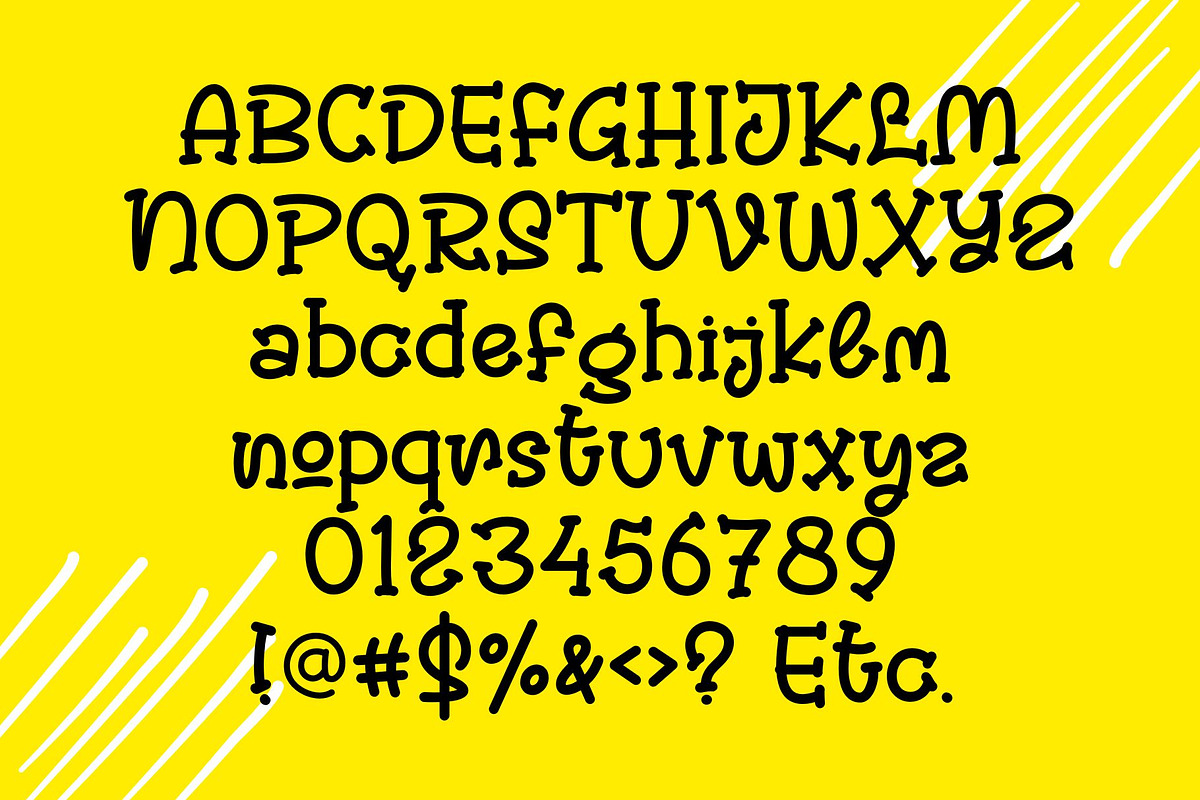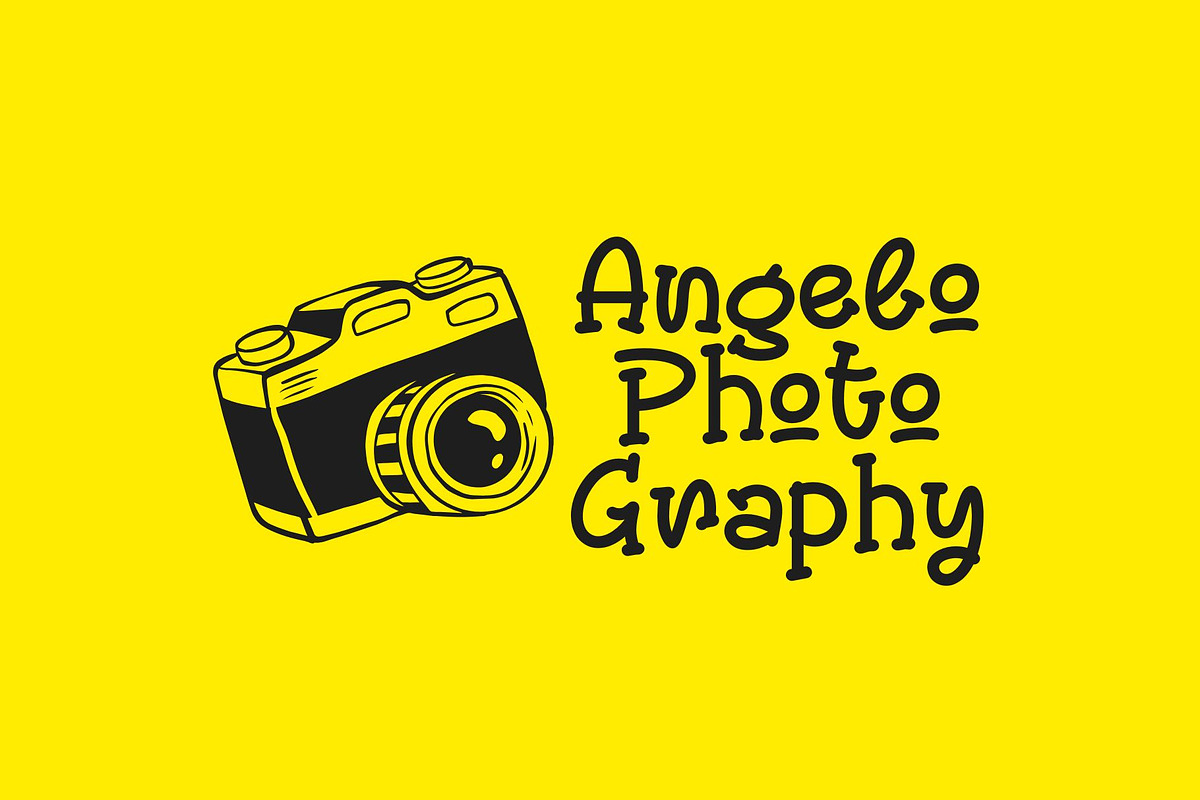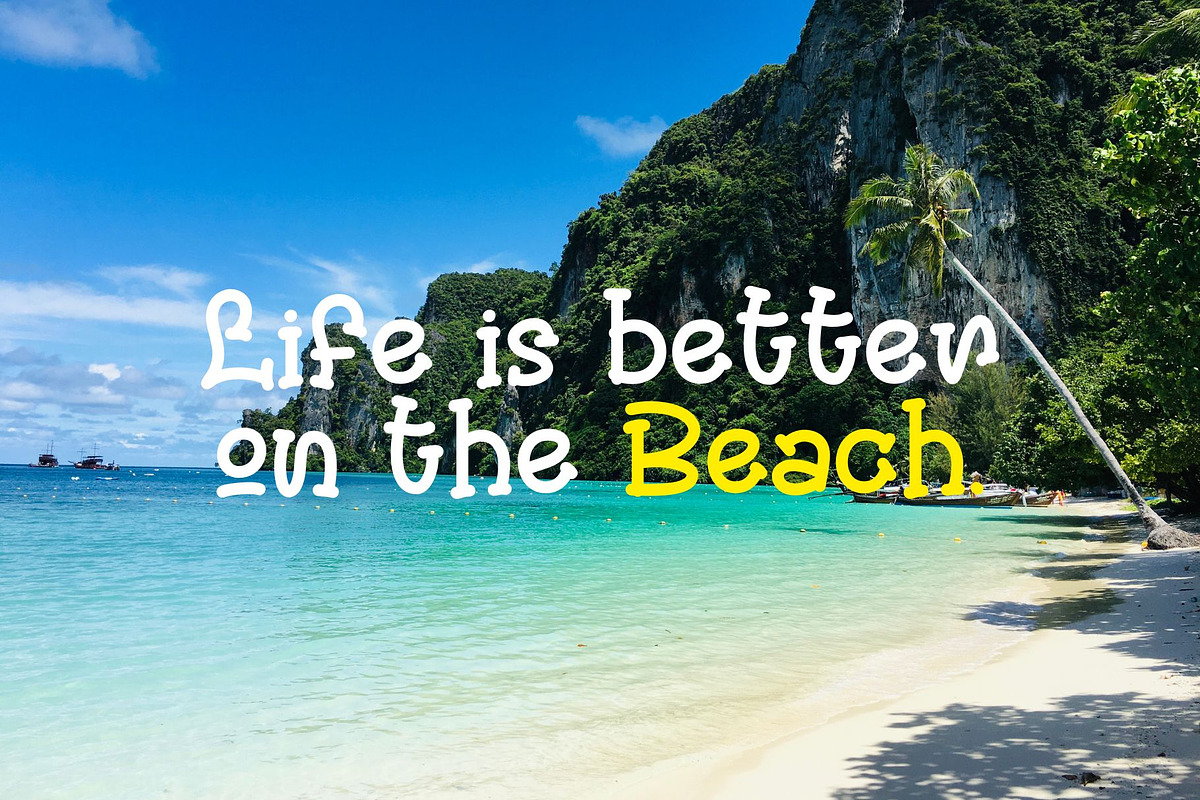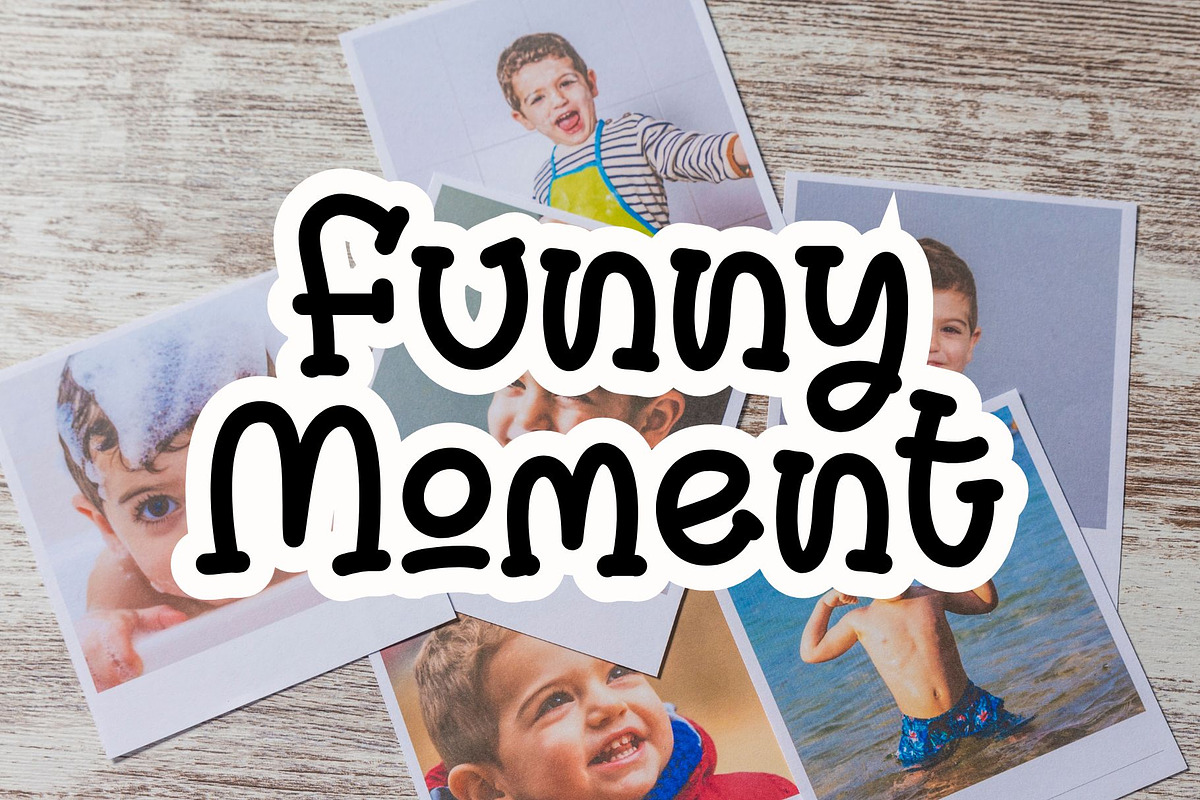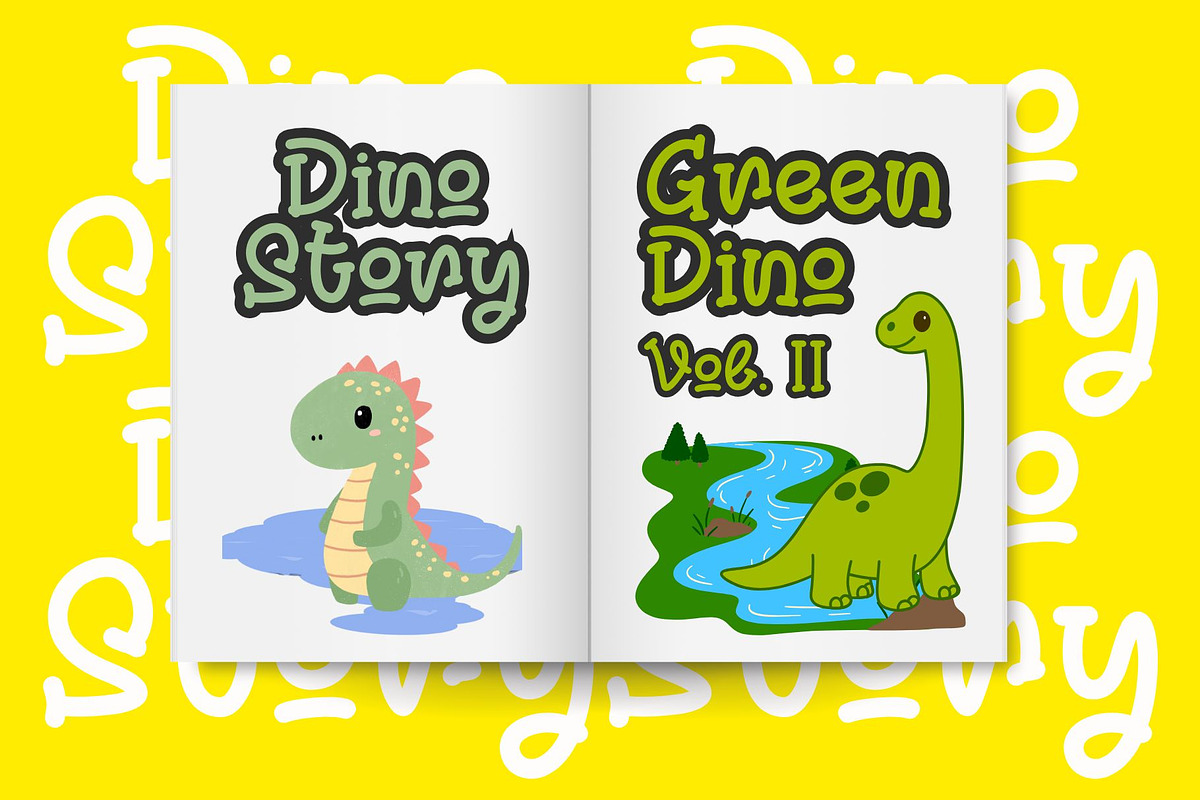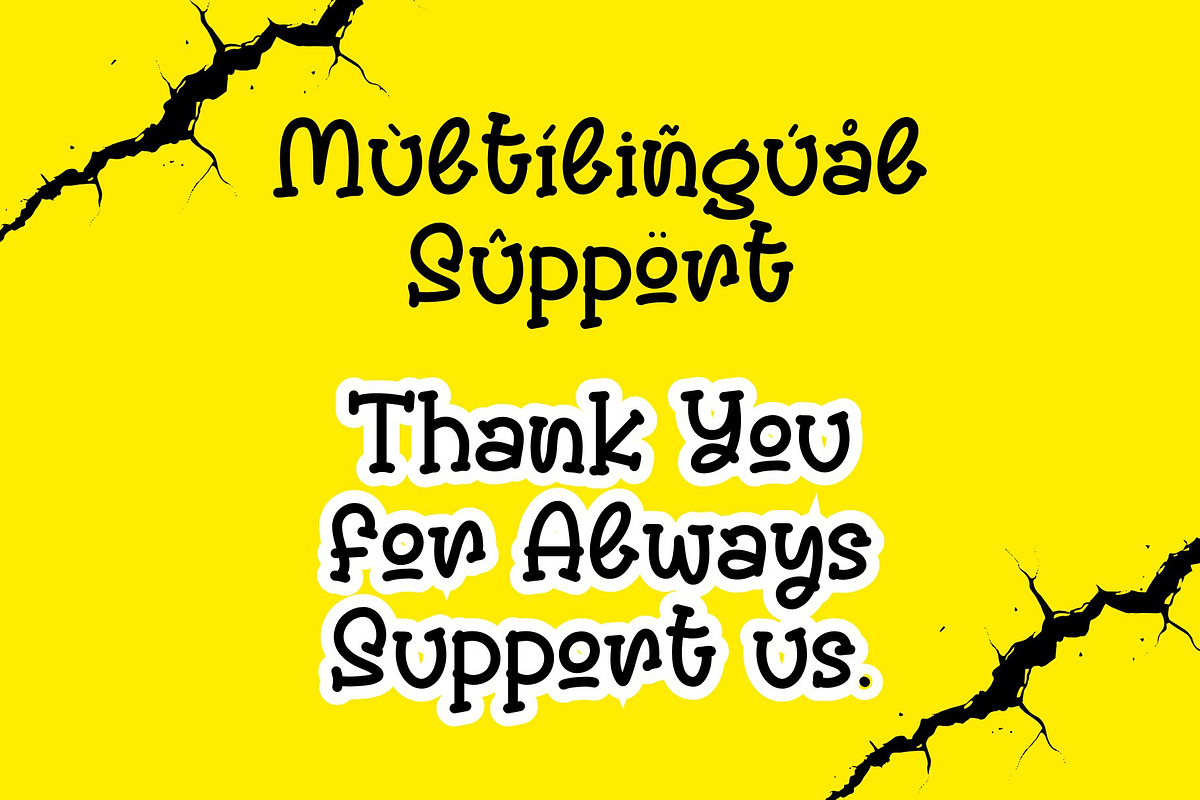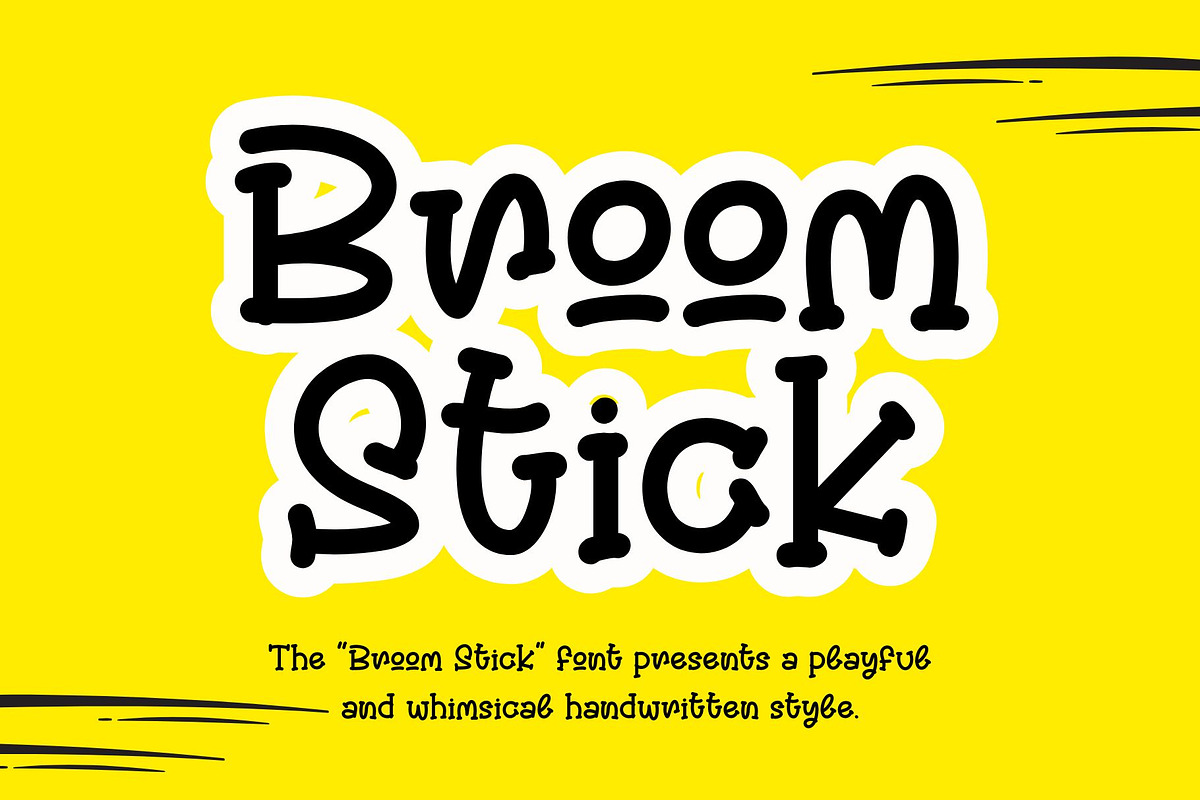
Broom Stick
The Broom Stick font presents a playful and whimsical handwritten style with tall, rounded characters and a slightly irregular baseline. Its casual and friendly design gives off a lighthearted and fun vibe, making it perfect for children's books, cartoon titles, product packaging, and creative projects that aim to express joy and imagination.